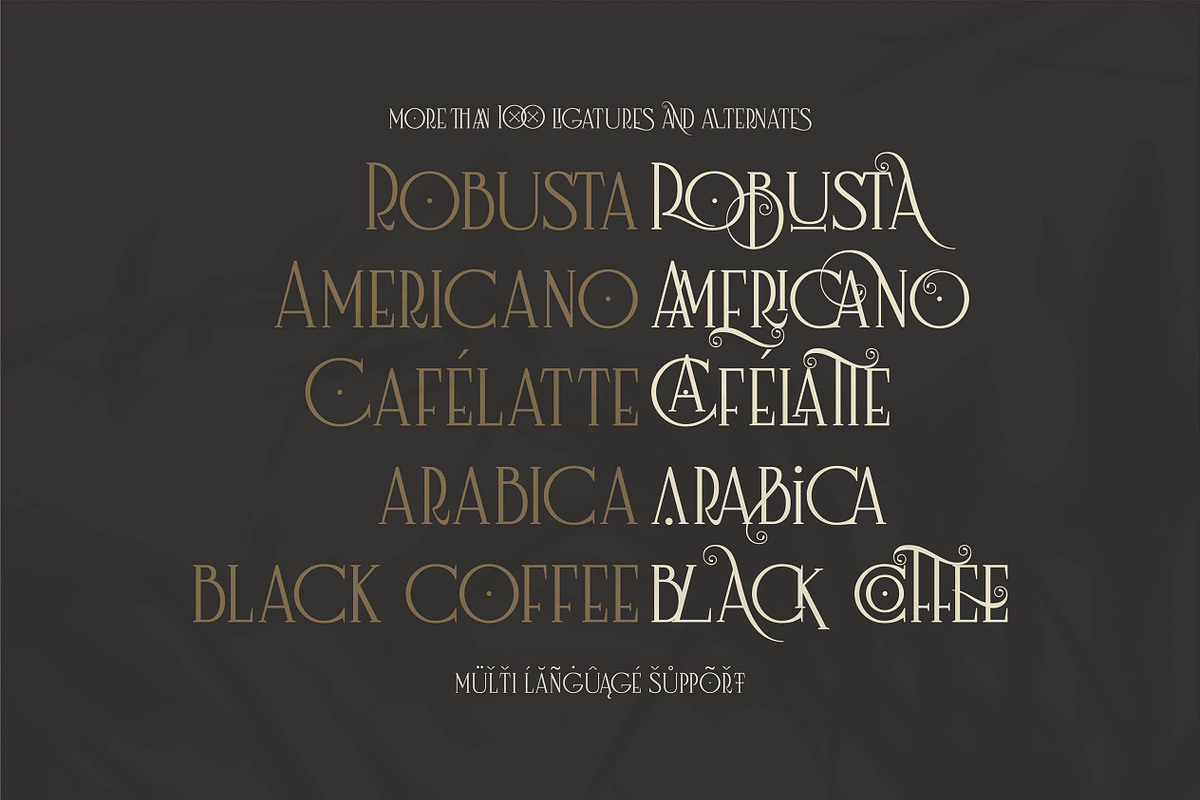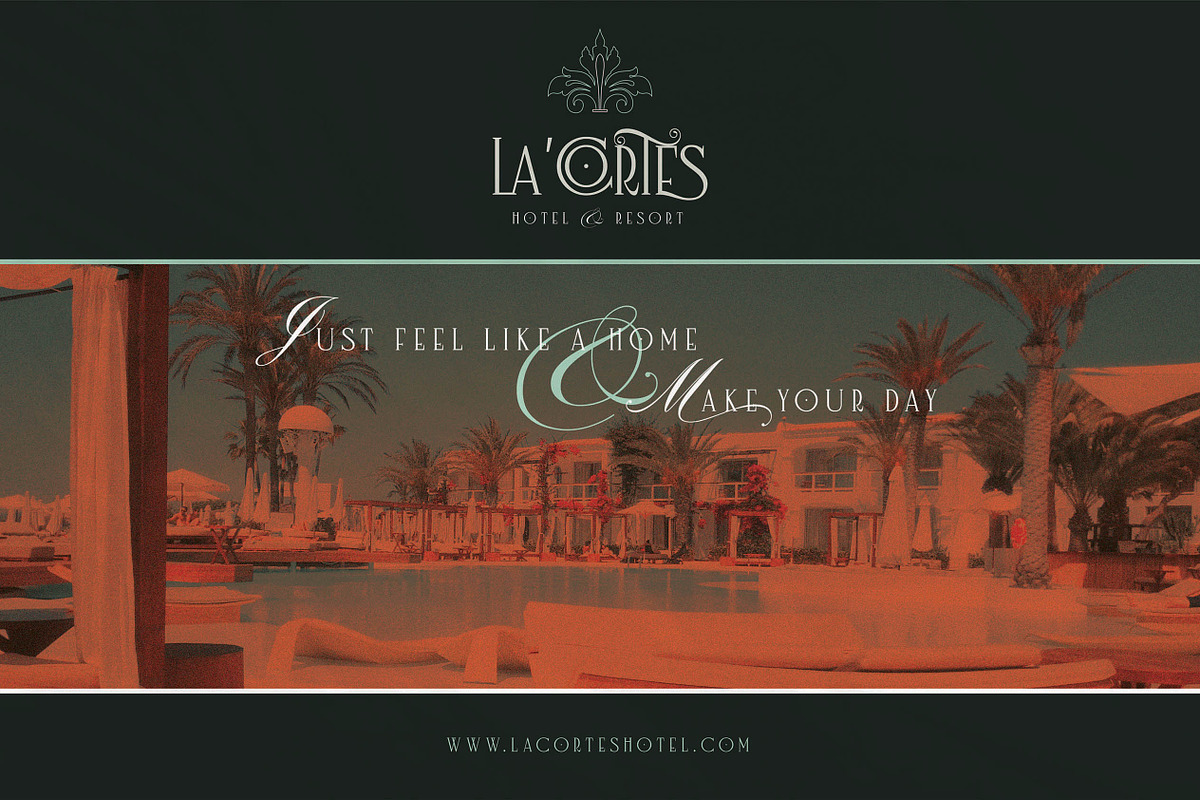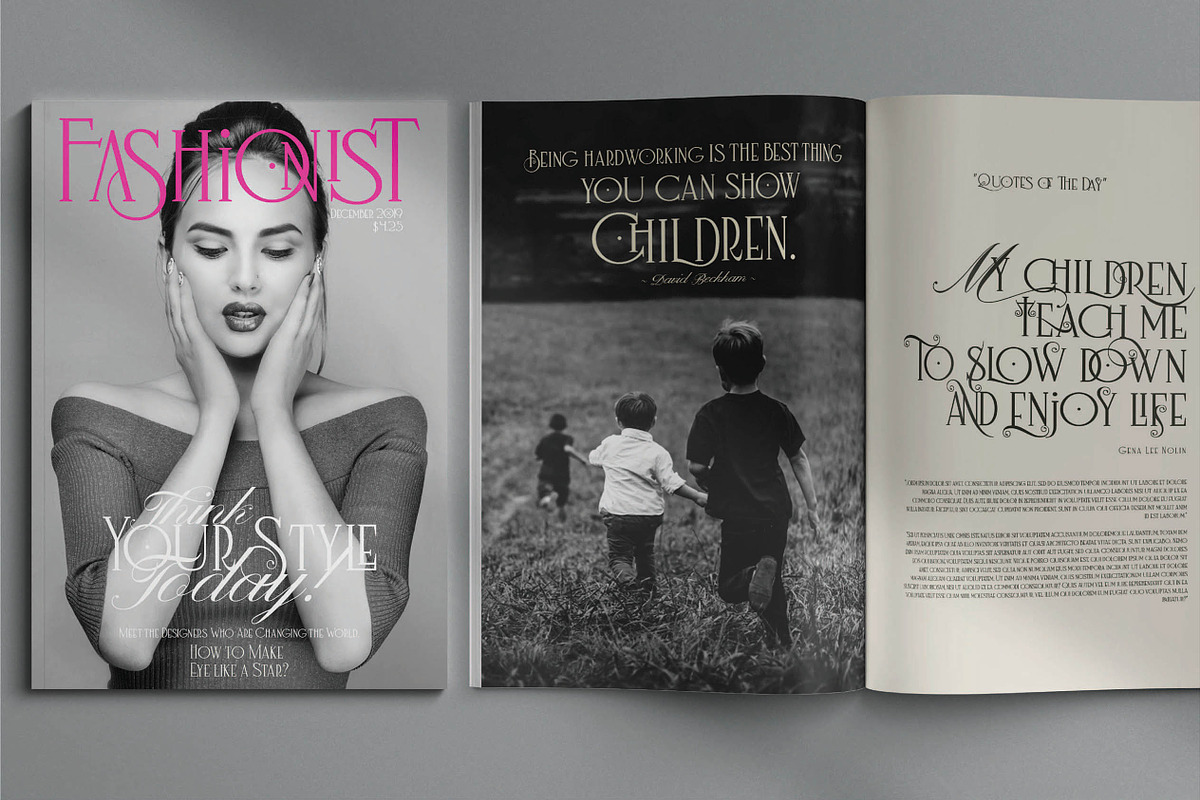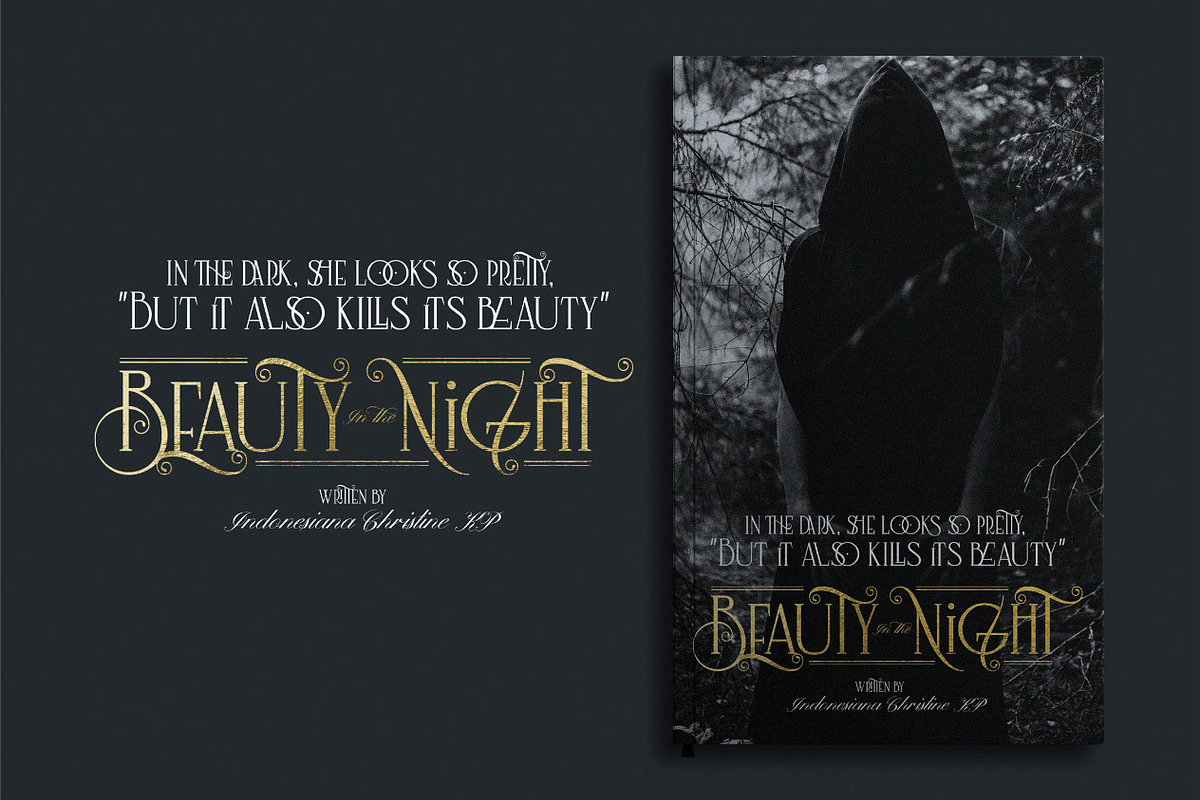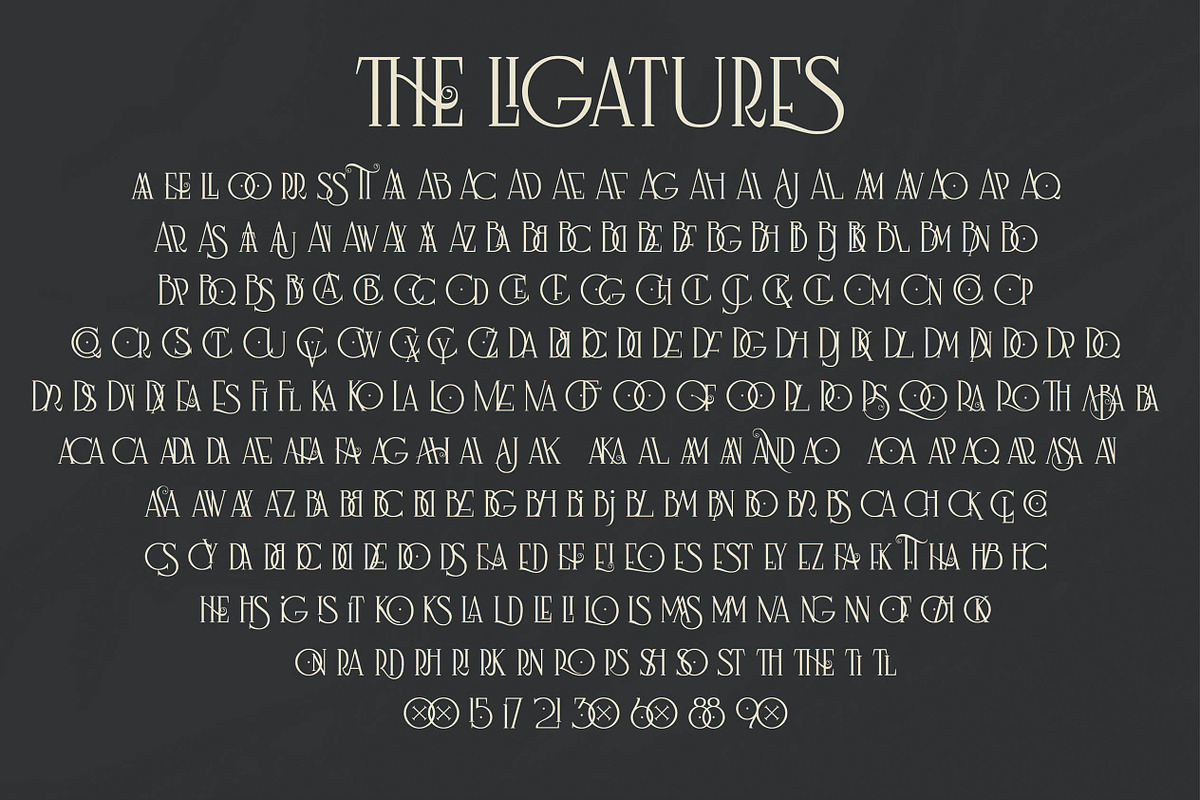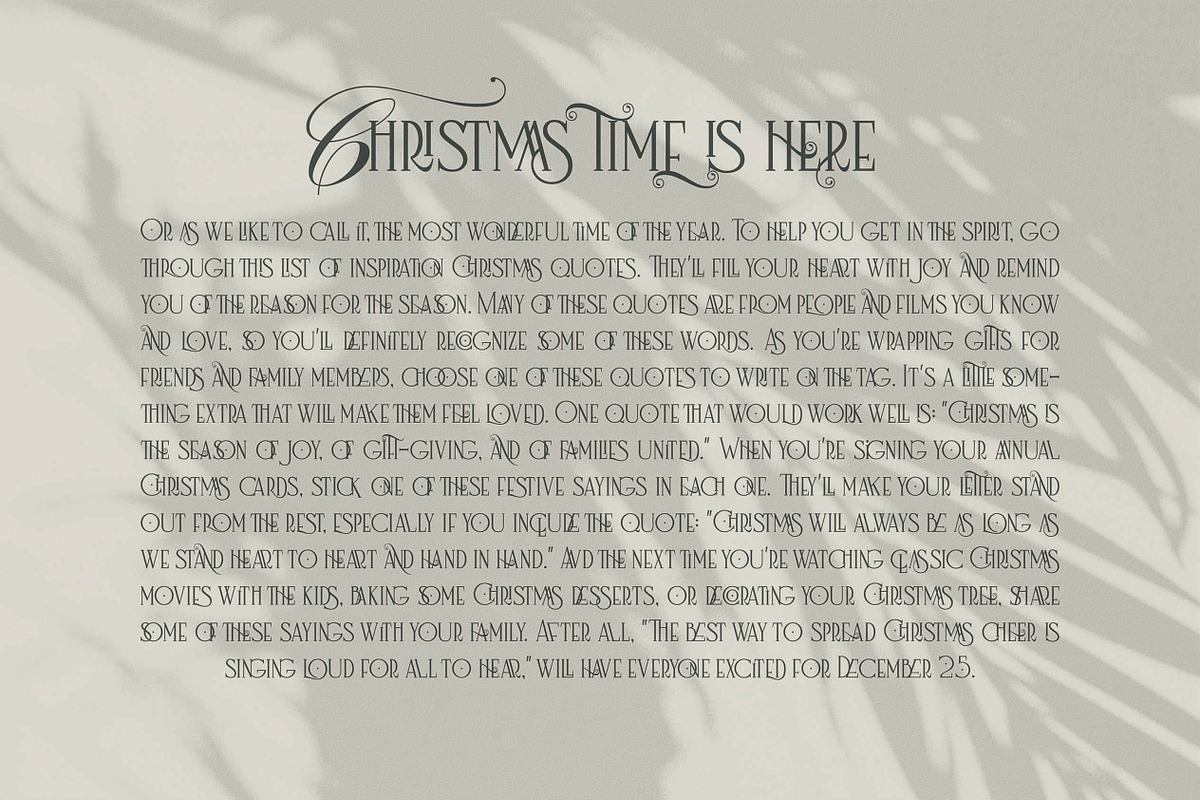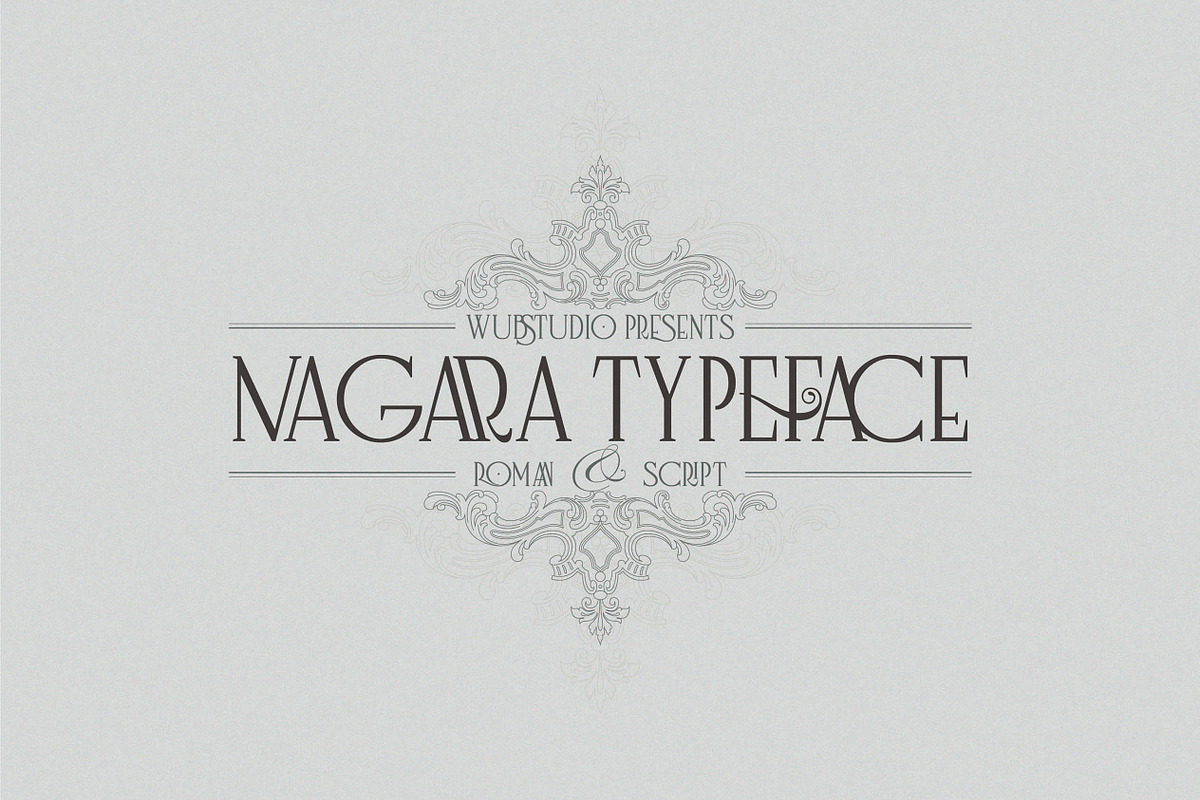
Nagara Typeface (Roman & Script)
Nagara Typeface is a font inspired by an old book, more or less around the early 1900s. This font is very beautiful with ligature and stylistic alternates. This font is very strict. Very cool to use for a classic theme book cover, novel, magazine or any other book.
Nagara Typeface has two families, namely: Roman and Script. You can combine both at the same time (See the preview image that I made). You can also use one of them. Your design sure looks cool. Because you are amazing.
The strength of this font is its ligature. There are more than 100 ligature, both Uppercase + lowercase, and lowercase + lowercase. (You can see in the image preview). Also use alternate to make your design look more dynamic.
- This font is very beautiful with ligature and stylistic alternates.
- The strength of this font is its ligature.
- There are more than 100 ligature, both Uppercase + lowercase, and lowercase + lowercase.
- Also use alternate to make your design look more dynamic.